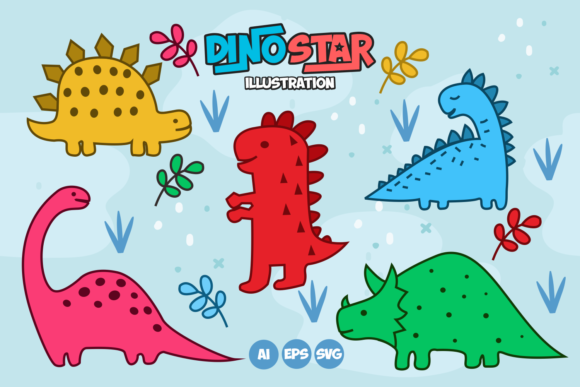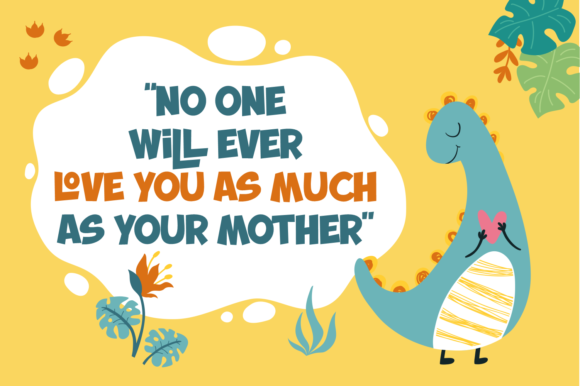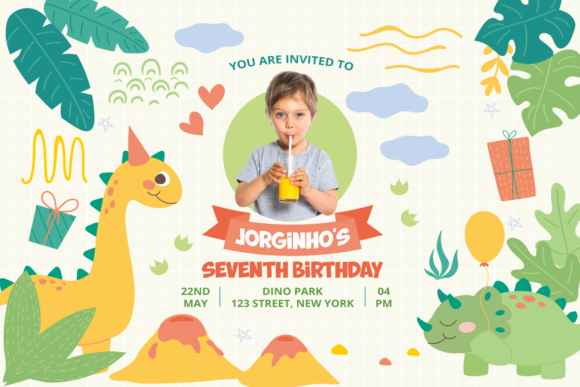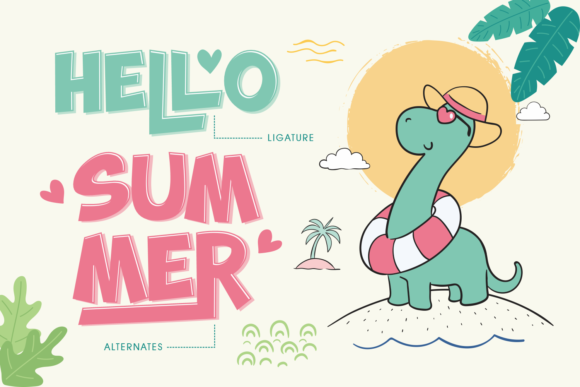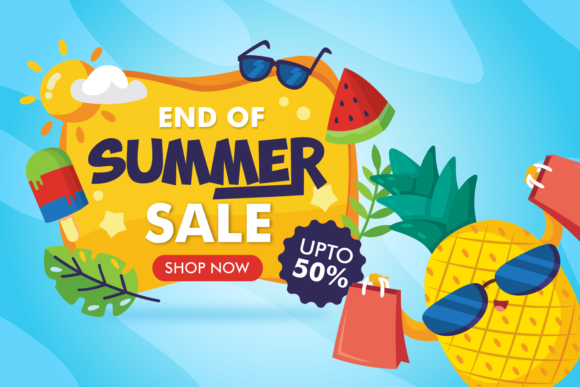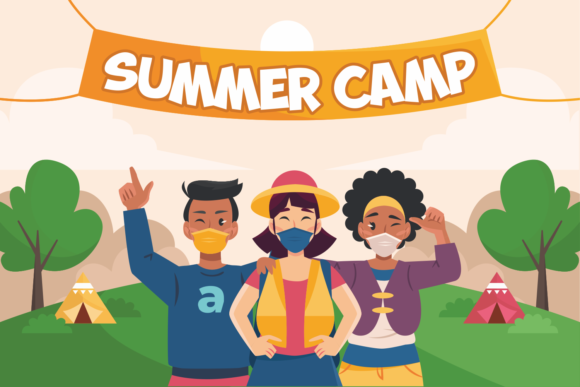
Dino Star Font: The Perfect Choice for Fun and Playful Designs
Are you looking for a font that can add a touch of playfulness and authenticity to your designs? Look no further than the Dino Star Font! This cute and colorful display font is perfect for any children activity or school project, and is sure to make your designs come alive.
What is Dino Star Font?
Dino Star Font is a chunky lettered font that is designed to be fun, playful, and engaging. It features bold and colorful letters that are perfect for making a statement. The font is inspired by the magic of childhood, and is sure to bring a smile to anyone’s face.
Key Features of Dino Star Font
- Cute and Colorful: The Dino Star Font features bright and bold colors that are sure to grab attention.
- Chunky Lettering: The font features thick and chunky letters that are perfect for making a statement.
- Playful and Authentic: The font embodies the playfulness and authenticity of childhood, making it perfect for children’s activities and school projects.
- Easy to Read: Despite its bold and chunky design, the Dino Star Font is easy to read and understand.
Uses for Dino Star Font
The Dino Star Font is perfect for a wide range of design projects, including:
- Children’s Activities: Use the Dino Star Font to create fun and engaging children’s activities, such as coloring pages, worksheets, and games.
- School Projects: The font is perfect for school projects, such as posters, presentations, and reports.
- Crafting: Use the Dino Star Font to add a touch of personality to your crafting projects, such as scrapbooking, card making, and DIY signs.
- Digital Designs: The font is also perfect for digital designs, such as social media graphics, blog posts, and website headers.
Tips for Using Dino Star Font
Here are a few tips for using the Dino Star Font in your designs:
- Use it for Headings: The Dino Star Font is perfect for headings and titles, as it makes a bold and eye-catching statement.
- Mix it with Other Fonts: Try mixing the Dino Star Font with other fonts to create a unique and interesting design.
- Experiment with Colors: The font comes in a range of colors, so experiment with different colors to find the one that works best for your design.
The Dino Star Font is a fun and playful display font that is perfect for any children activity or school project. Its bold and colorful design makes it a great choice for designers and crafters who want to add a touch of personality to their work. With its ease of use and versatility, the Dino Star Font is sure to become a favorite in your design toolkit.